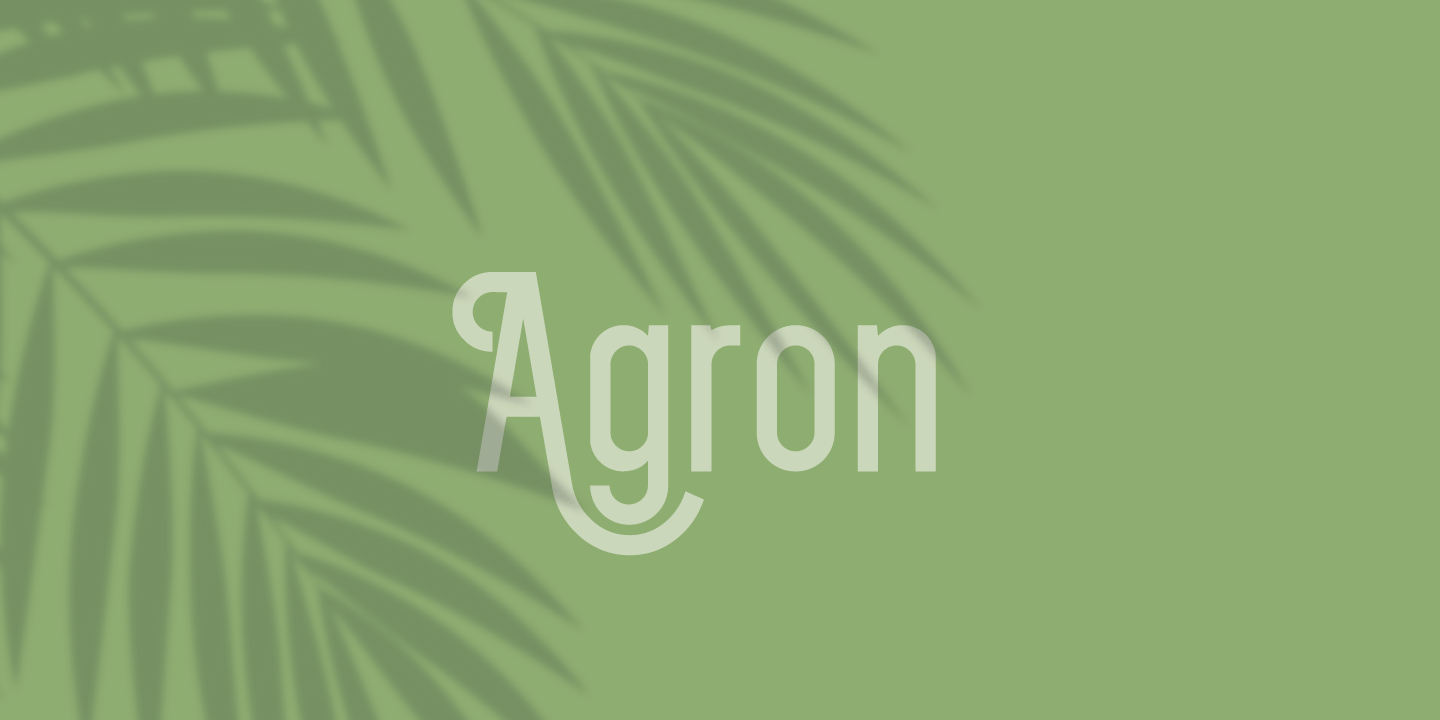
Agron Font is incredibly versatile and excels in a wide range of applications. Imagine it gracing the covers of modern design magazines, standing out on sleek tech startup websites, or making a bold statement in your next branding project. It’s perfect for creating eye-catching headlines, impactful posters, engaging social media graphics, and contemporary logo designs. Its clean lines and robust character make it a go-to choice for digital and print media alike, adding a touch of sophisticated edge to any visual communication. Whether you're working on a minimalist layout or a more complex composition, Agron Font provides the clarity and presence you need.
What makes Agron Font truly exciting is its unique blend of strength and elegance. It possesses a contemporary feel that is both refined and powerful, making it highly adaptable to various design aesthetics. The subtle details within its letterforms give it a distinct personality without being overly decorative, ensuring readability and impact. Designers often praise Agron Font for its professional appearance and its ability to elevate a design from ordinary to exceptional. It’s a font that commands attention, making your message resonate with your audience. Its sharp angles and balanced proportions contribute to a sense of modern precision, making it an ideal choice for projects that demand a cutting-edge look.
The Agron Font family is designed for maximum flexibility and offers a comprehensive set of weights and styles. While specific family members might vary, typically you’ll find options such as Regular, Bold, Light, and sometimes Italic or other variations that provide designers with ample choices to achieve the desired visual hierarchy and emphasis within their work. These different weights ensure that Agron Font can be used effectively for both prominent display text and smaller body copy, maintaining legibility across all sizes.